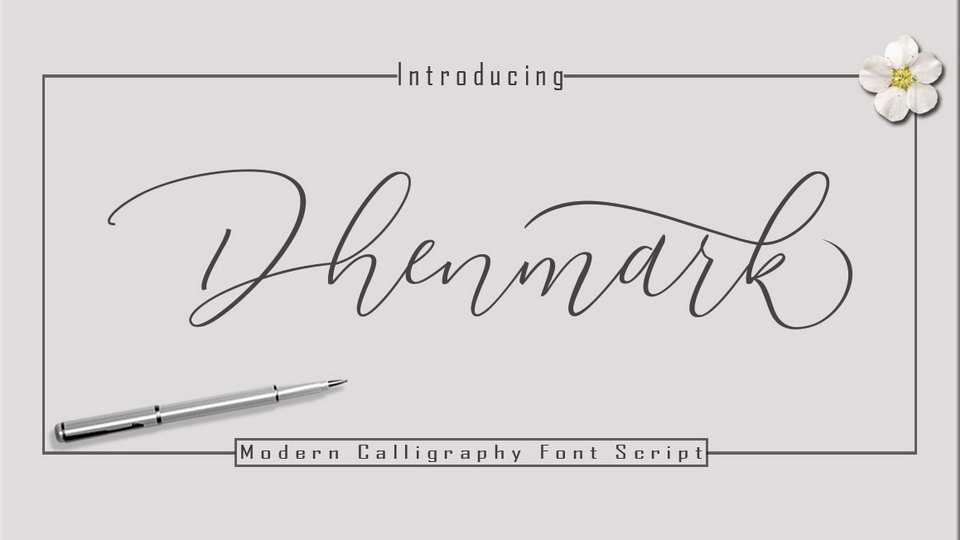
Download Dhenmark Script font, a beautiful modern calligraphy typeface with free and light flow. It’suitable for personal branding, wedding decoration, letters and cards, quotes, social media and more.
Designer: Balya Studio